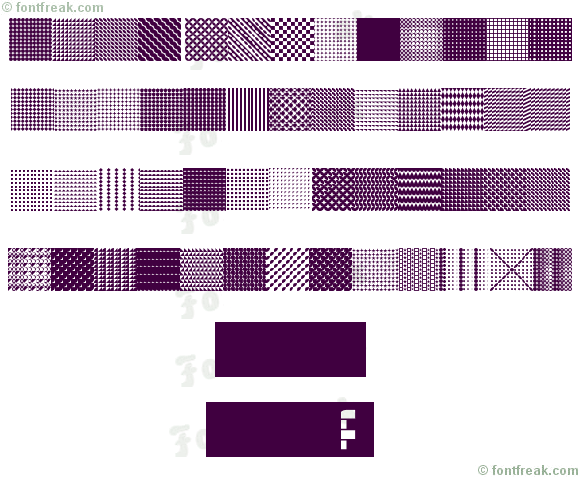
Serangkaian Pattern Regular
Serangkaian Pattern Regular, designed by Adien Gunarta in 2010, is a unique display font that embodies a modern aesthetic through its intricate pattern work. This decorative font features a series of bold, geometric shapes interspersed with varying stroke weights, creating a visually engaging texture. The contrast between thick and thin elements adds a dynamic quality, making it stand out in any design. The spacing between characters is carefully considered, allowing the patterns to breathe while maintaining legibility.
This font is particularly well-suited for creative projects that require a distinctive flair. Its eye-catching design makes it an excellent choice for wedding invitations, where a touch of elegance is desired. Similarly, it can elevate movie posters by providing a bold statement that captures attention. Restaurant menus can also benefit from the unique visual appeal of Serangkaian Pattern Regular, adding a modern twist to traditional formatting. Additionally, content creators looking to enhance their blog graphics or social media posts will find this font a valuable asset for attracting viewers.
What truly sets Serangkaian Pattern Regular apart is its ability to blend artistry with functionality. The intricate patterns and modern design elements offer a fresh take on traditional typography, making it a versatile choice for anyone looking to make a memorable impact. For those interested, the Serangkaian Pattern Regular font free download is available, allowing you to incorporate this stunning typeface into your own unique projects.